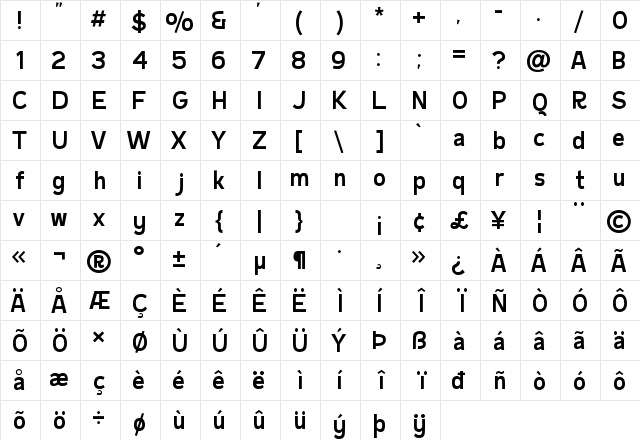
Burbin Casual NC Regular
Design Context for Burbin Casual NC
Burbin Casual NC is a composed and adaptable typeface that performs quietly and consistently across a wide range of design contexts.
Pro Tip: Use Burbin Casual NC in both headline and body roles to test its range before committing to a single application.